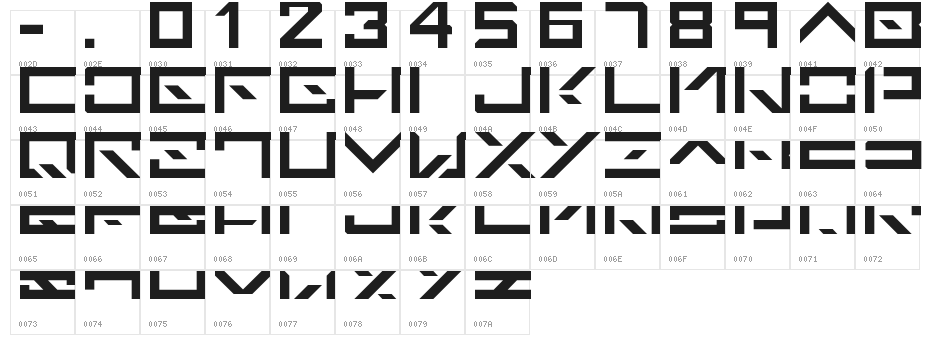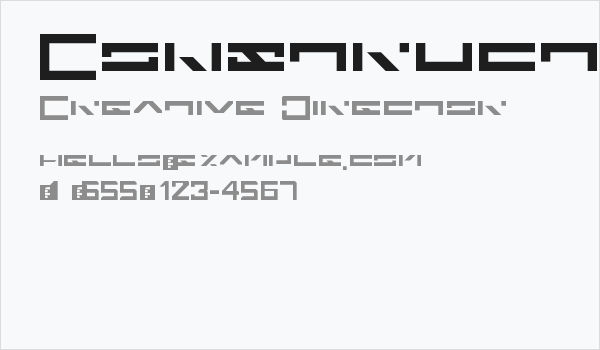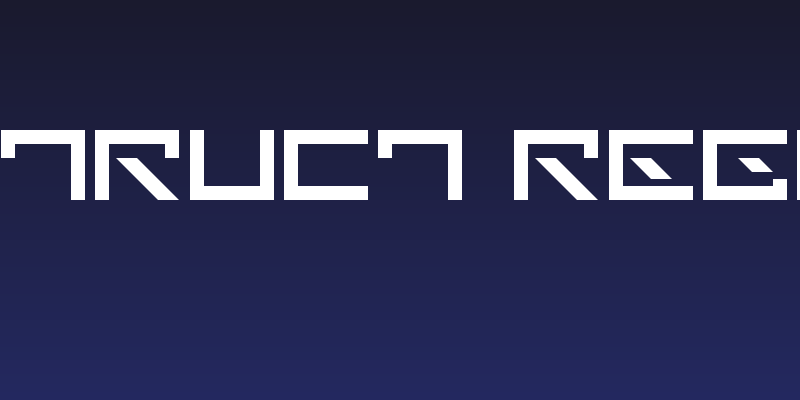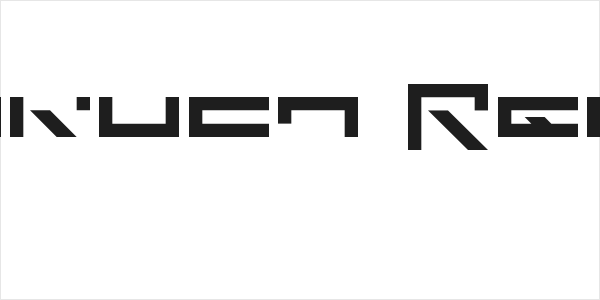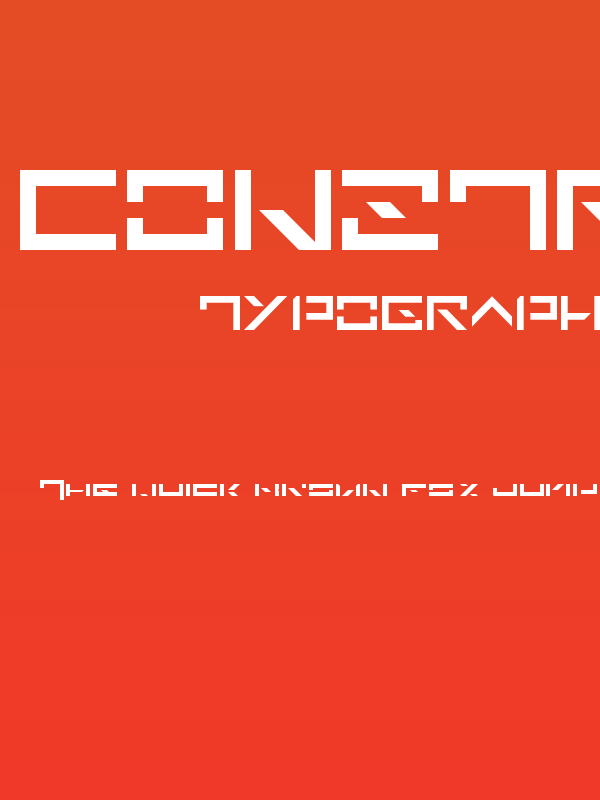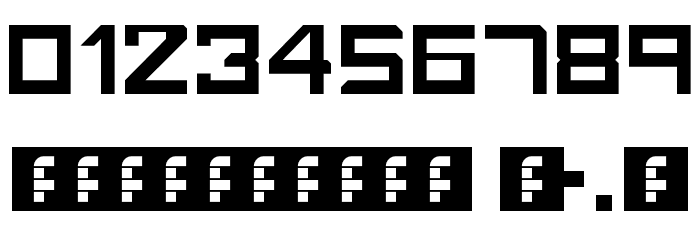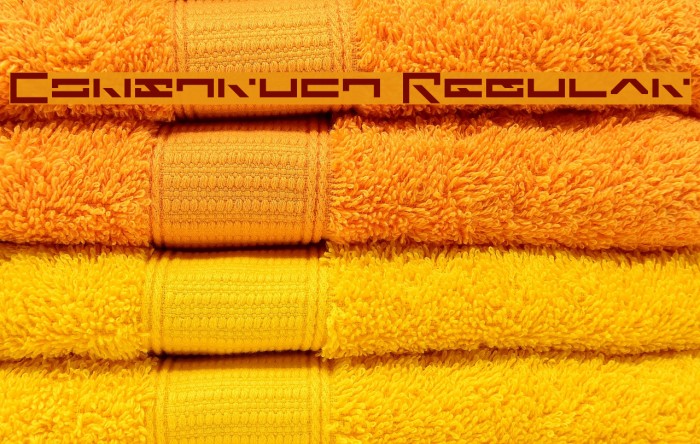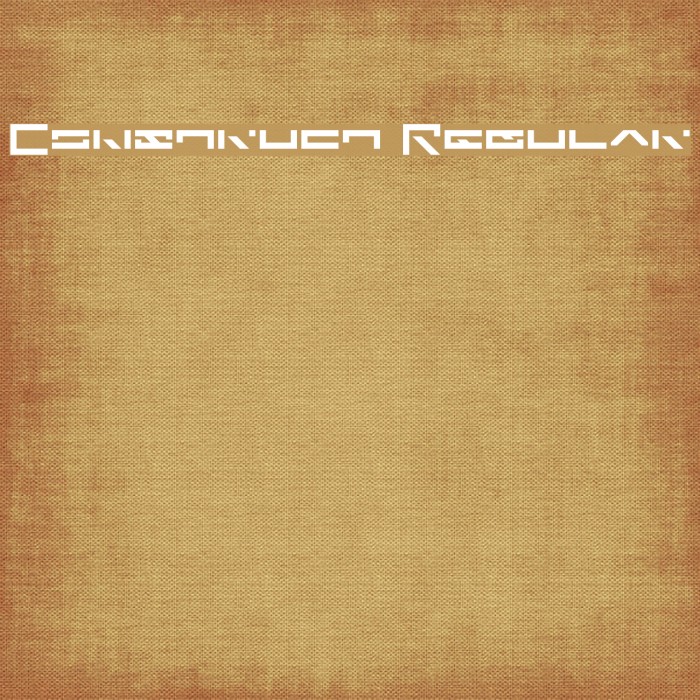
Construct Regular Font
Construct Regular Description
This font features a bold, geometric design with a futuristic and industrial feel. The characters are constructed with sharp angles and straight lines, giving it a mechanical and structured appearance. The uppercase and lowercase letters maintain a consistent style, with a strong emphasis on symmetry and alignment. Numbers and special characters follow the same design principles, ensuring uniformity across all glyphs. The font's unique style makes it stand out, ideal for projects that require a modern and edgy look.
| Proposed Projects | Ideal for technology branding, sci-fi posters, video game titles, and modern architectural designs. |